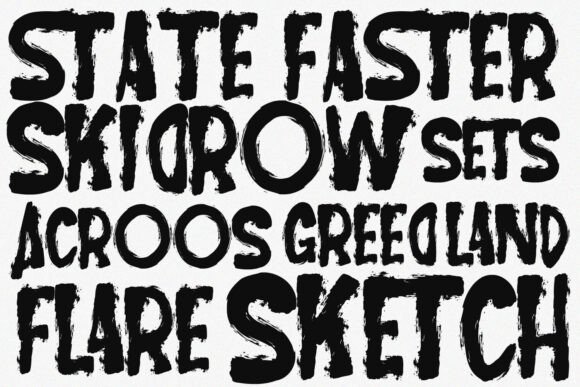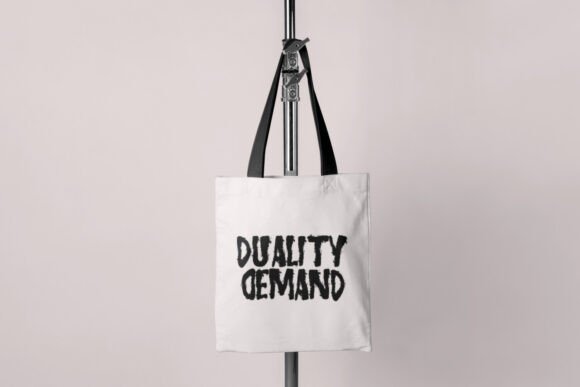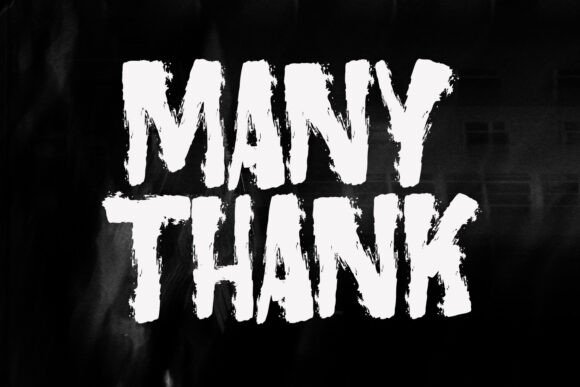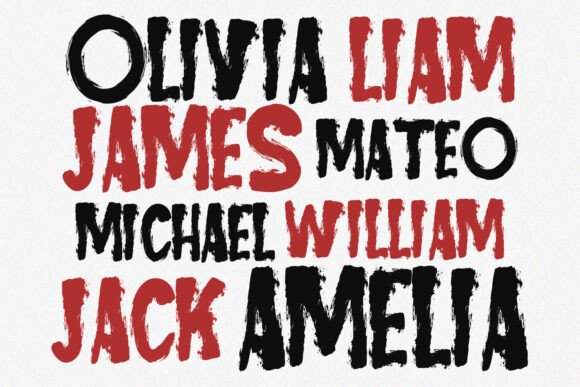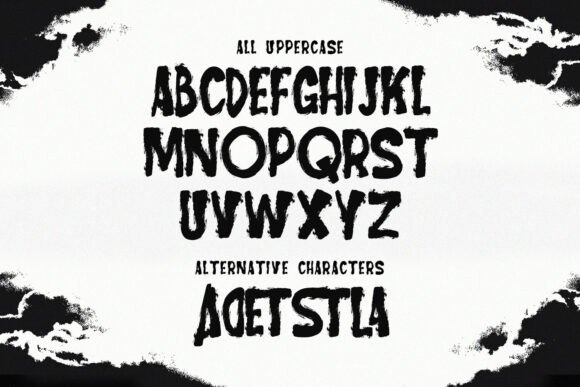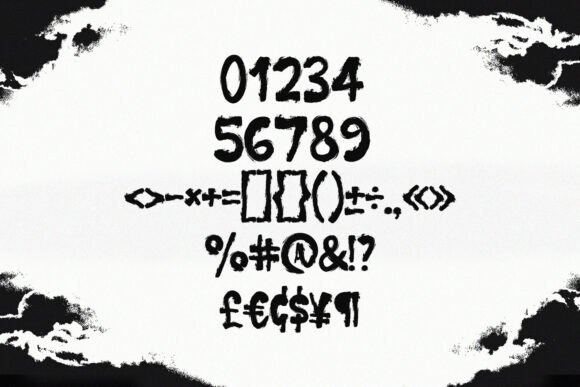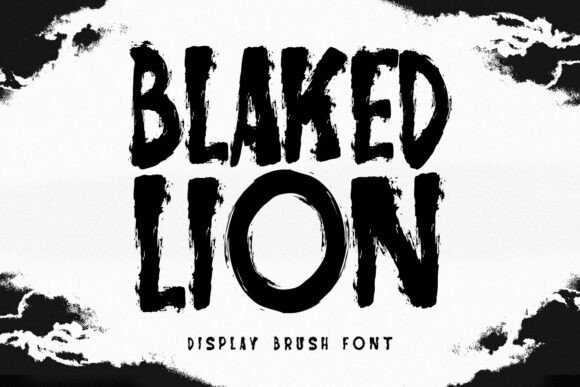
Unleash Your Creativity with Blaked Lion Font: The Ultimate Display Font for Edgy Designs
Are you a designer or crafter looking for a font that can add a rebellious and energetic vibe to your projects? Look no further than the Blaked Lion Font. This fierce and rugged display font is perfect for creating edgy designs that command attention. With its raw, hand-painted brush texture, bold strokes, and distressed edges, Blaked Lion is the ideal choice for a variety of design applications, including posters, album covers, sports branding, and urban-style artwork.
The Unique Characteristics of Blaked Lion Font
Blaked Lion Font stands out from other display fonts due to its unique characteristics. The font features a raw, hand-painted brush texture that gives it a rugged and distressed look. The bold strokes and rough edges add to the font’s edgy feel, making it perfect for designs that require a strong and attention-grabbing presence.
One of the key features of Blaked Lion Font is its versatility. The font can be used for a wide range of design applications, from posters and album covers to sports branding and urban-style artwork. Whether you’re creating a bold and eye-catching poster or a sleek and modern logo, Blaked Lion Font is the perfect choice.
Design Applications for Blaked Lion Font
Blaked Lion Font is perfect for a variety of design applications, including:
- Posters: Create bold and eye-catching posters with Blaked Lion Font. The font’s raw, hand-painted brush texture and bold strokes make it perfect for posters that require a strong and attention-grabbing presence.
- Album Covers: Add a rebellious and energetic vibe to your album covers with Blaked Lion Font. The font’s edgy feel and distressed edges make it perfect for music genres such as rock, punk, and hip-hop.
- Sports Branding: Create bold and dynamic sports branding with Blaked Lion Font. The font’s bold strokes and rugged texture make it perfect for sports teams and brands that require a strong and competitive presence.
- Urban-Style Artwork: Add a touch of rebellion and energy to your urban-style artwork with Blaked Lion Font. The font’s raw, hand-painted brush texture and distressed edges make it perfect for artwork that requires a bold and edgy feel.
Tips for Using Blaked Lion Font
Here are some tips for using Blaked Lion Font in your designs:
- Use it boldly: Blaked Lion Font is a bold and attention-grabbing font, so use it boldly in your designs. Experiment with different font sizes and colors to create a strong and eye-catching presence.
- Pair it with contrasting fonts: Pair Blaked Lion Font with contrasting fonts to create visual interest and hierarchy in your designs. For example, pair it with a clean and modern sans-serif font to create a bold and eye-catching headline.
- Experiment with textures: Experiment with different textures and effects to enhance the raw, hand-painted brush texture of Blaked Lion Font. Try adding a distressed or worn effect to give the font a more rugged and edgy feel.
In conclusion, Blaked Lion Font is a fierce and rugged display font that is perfect for creating edgy designs that command attention. With its raw, hand-painted brush texture, bold strokes, and distressed edges, Blaked Lion Font is the ideal choice for designers and crafters who require a strong and attention-grabbing presence in their designs. Whether you’re creating posters, album covers, sports branding, or urban-style artwork, Blaked Lion Font is the perfect choice for adding a rebellious and energetic vibe to your projects.